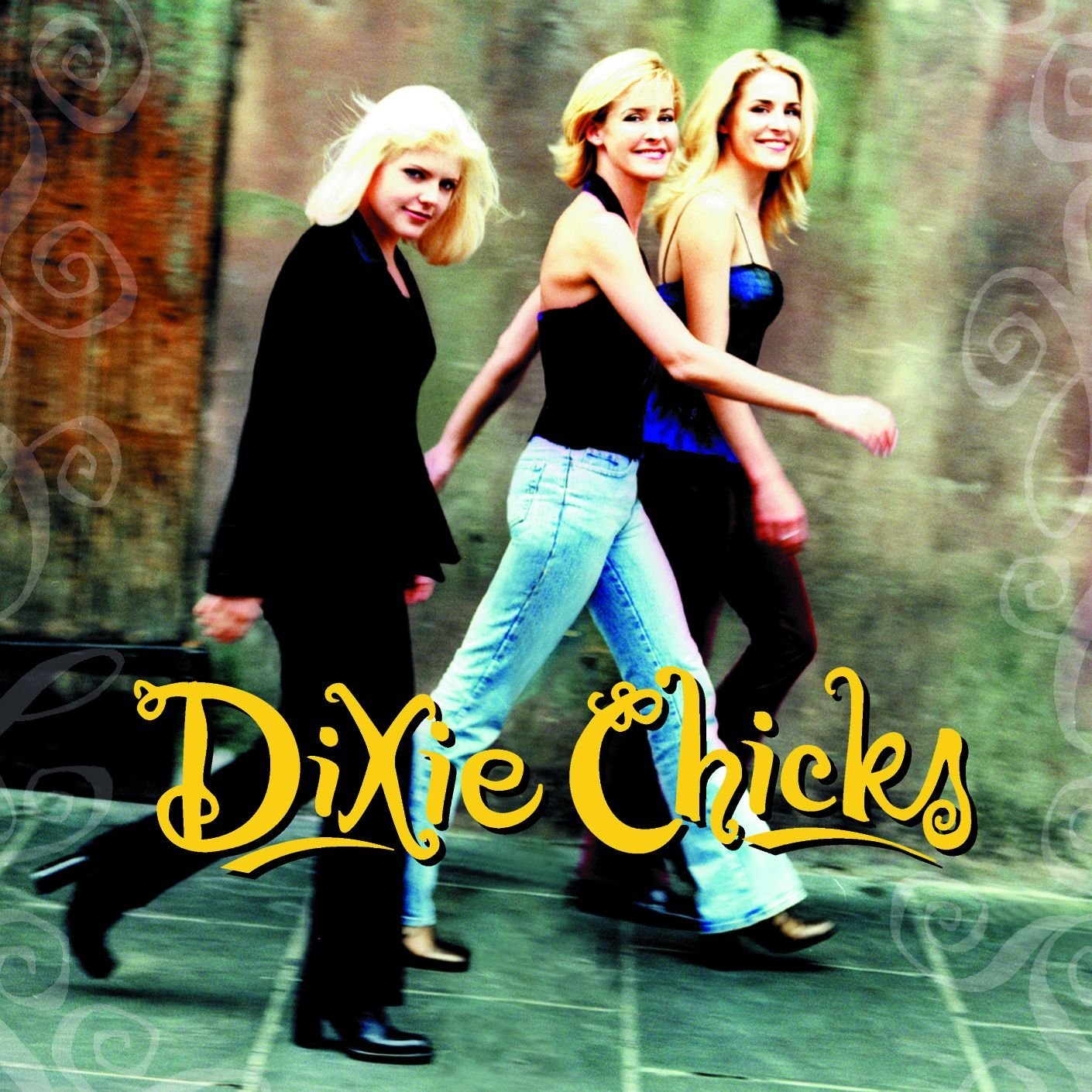
Dixie Chicks Font
BandThe Dixie Chicks are a country music band formed in 1989, known for their hit songs such as "Wide Open Spaces" and "Not Ready to Make Nice." They have won multiple Grammy Awards and have sold over 30 million records worldwide.
The image above is the cover art for the album and it seems that the band name was inspired by the font Hollyweird which is a curled display script designed by California-based artist Jill Bell.